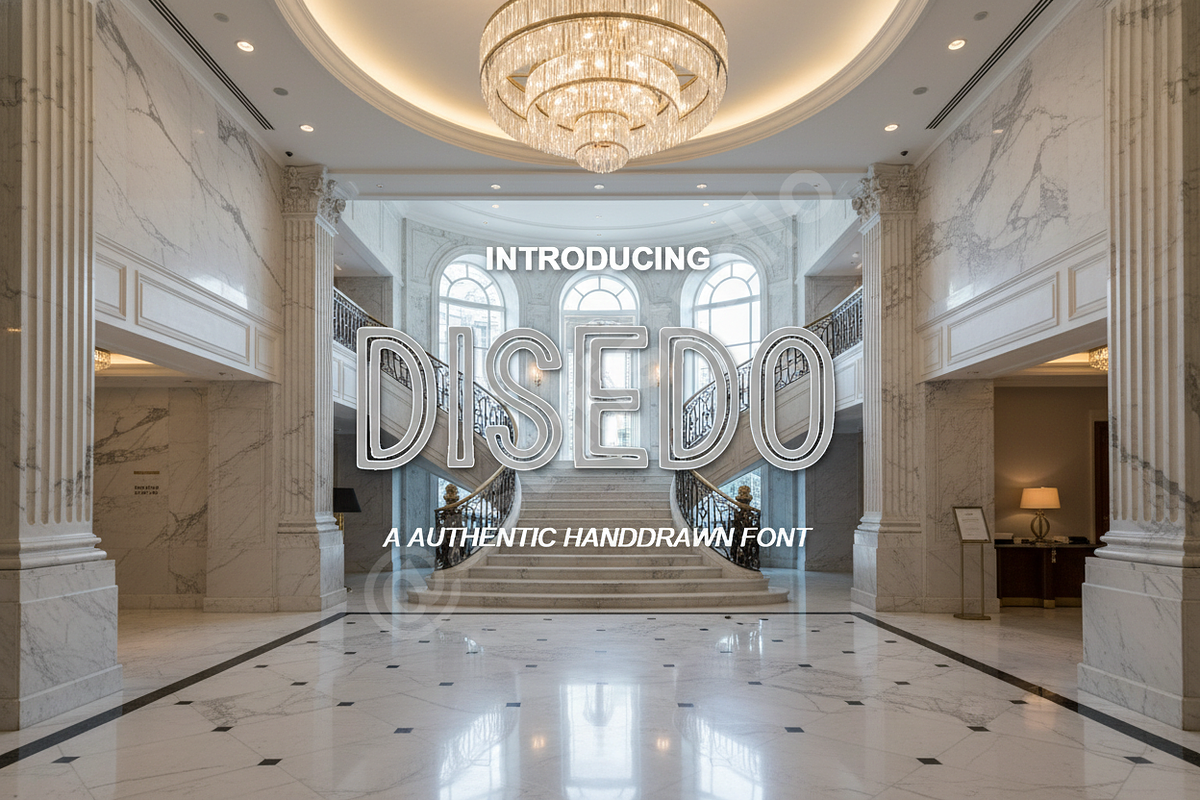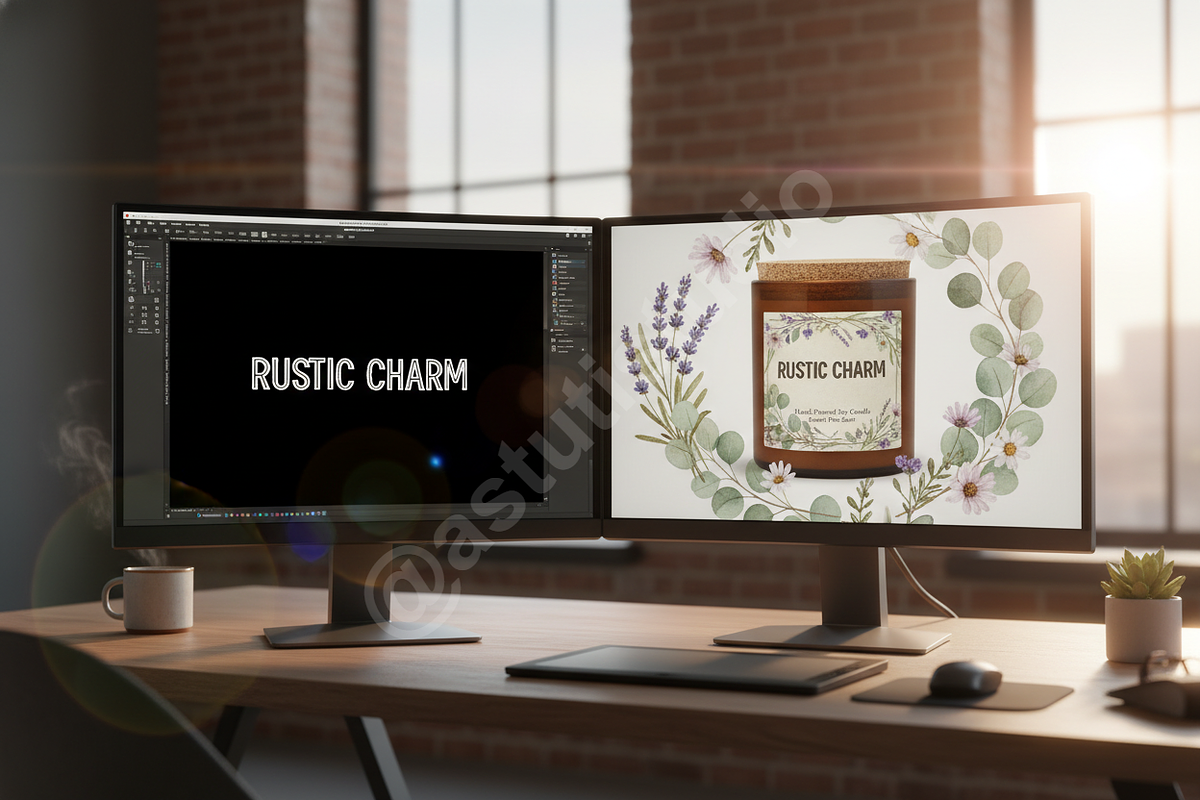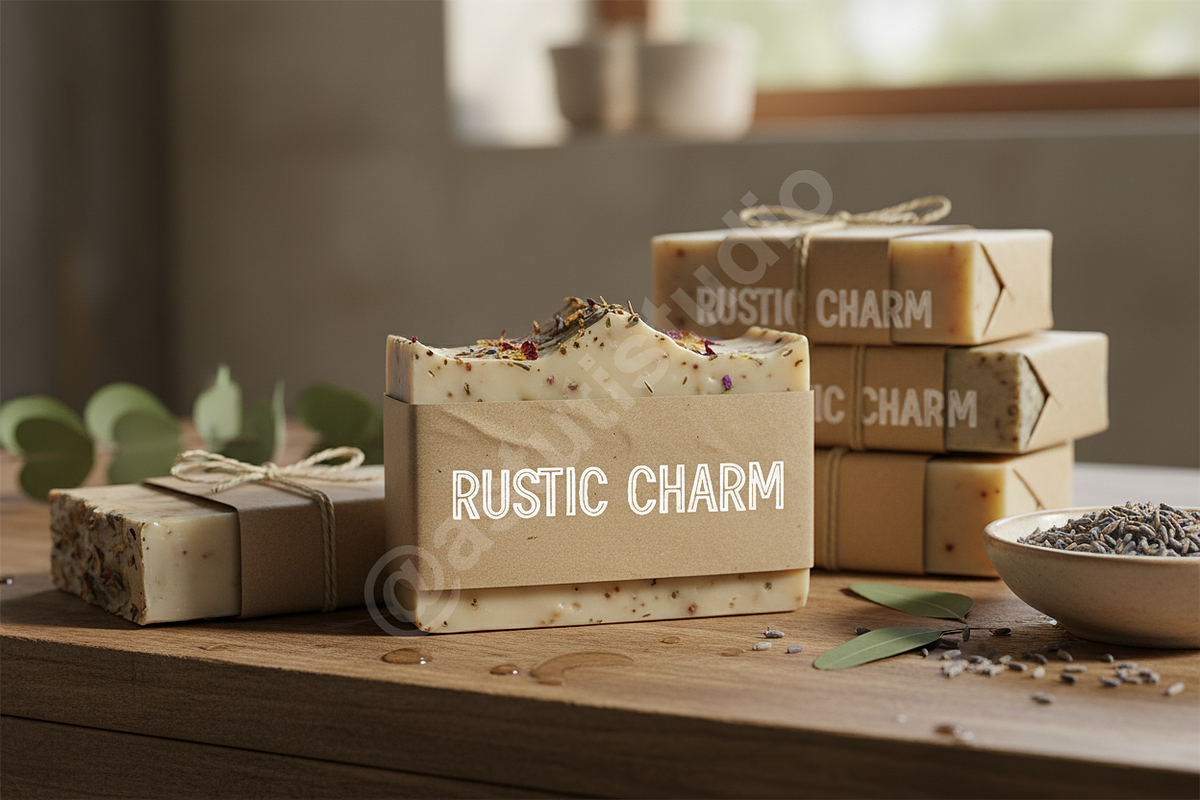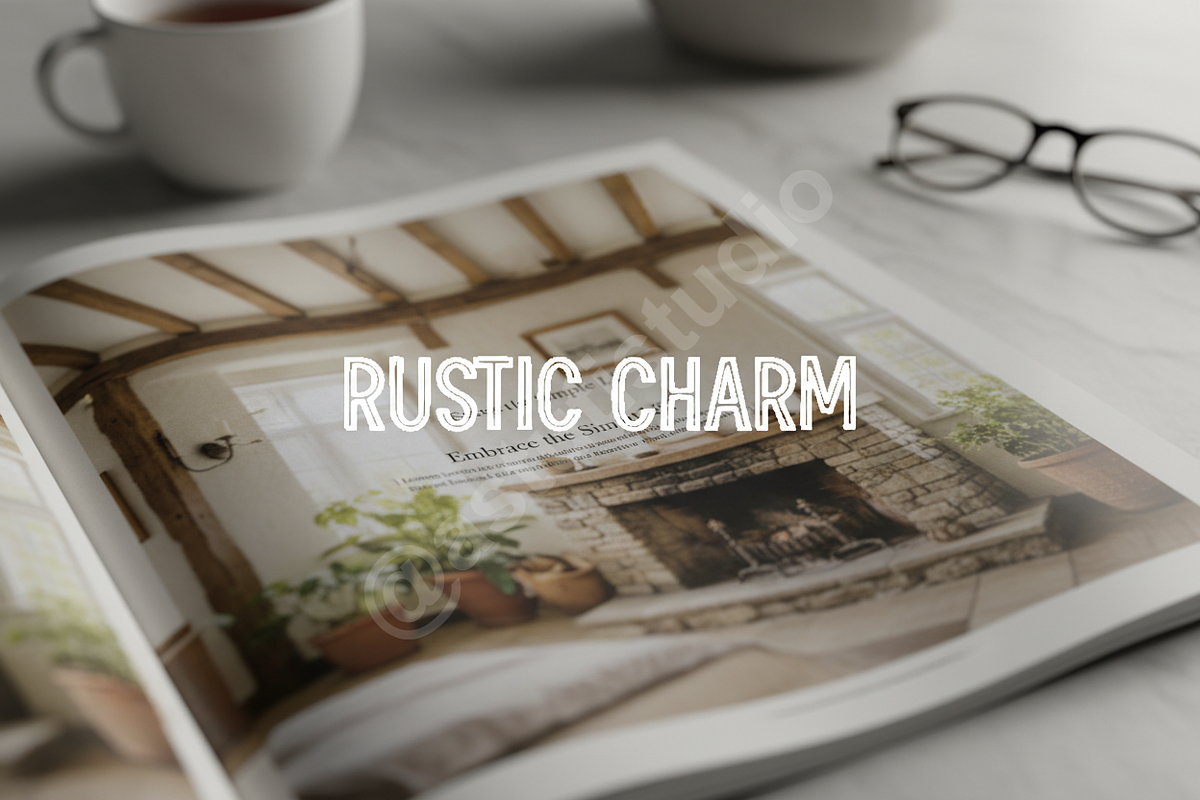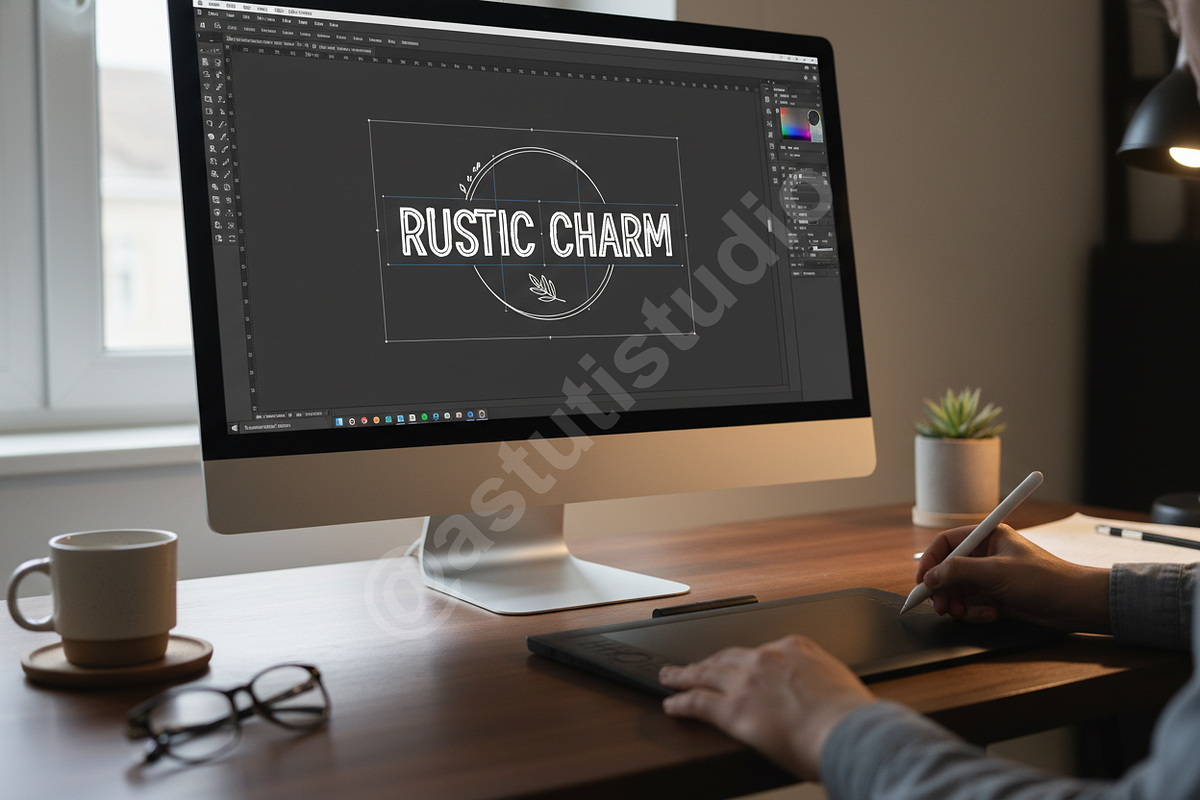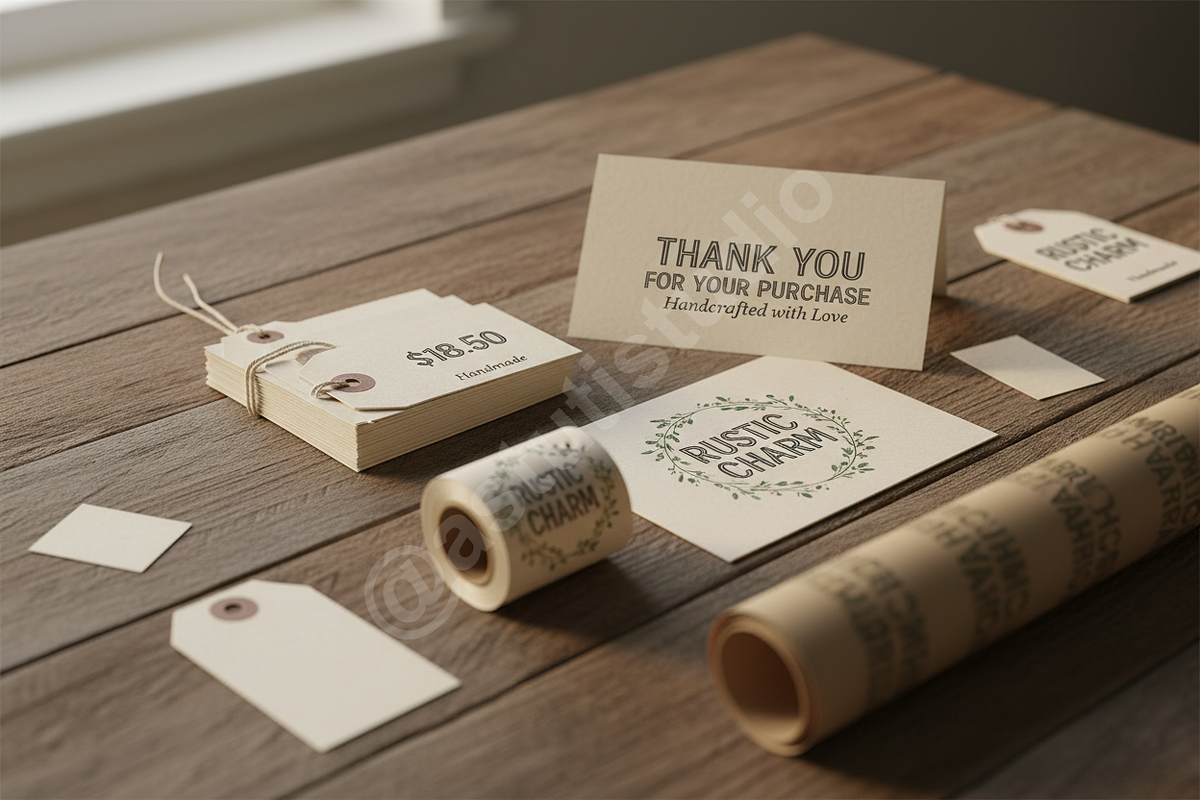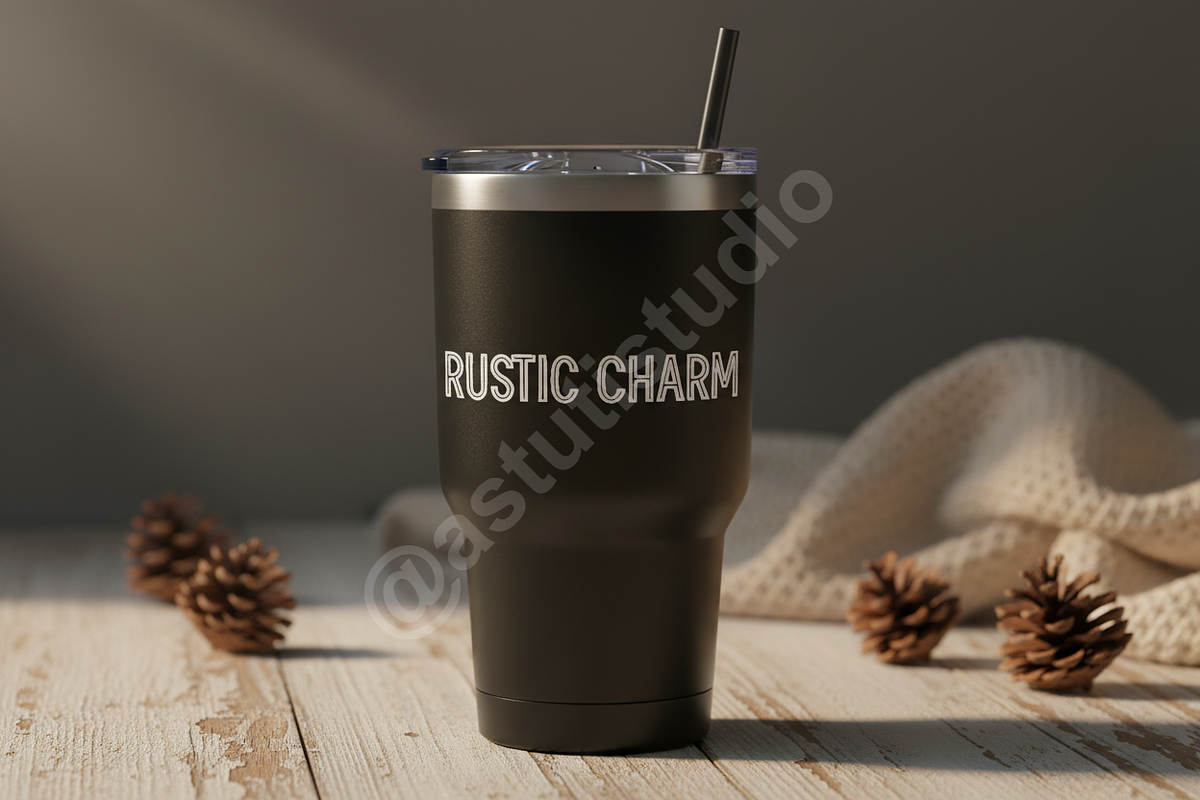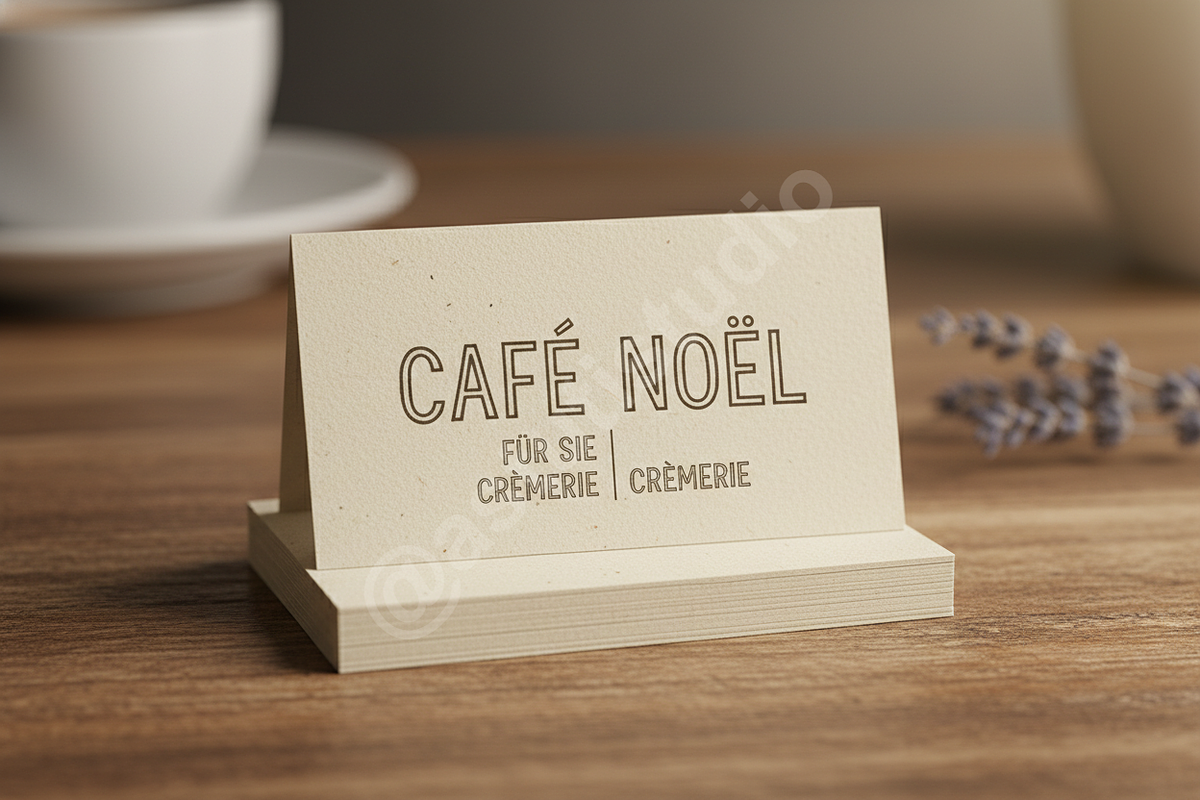
Disedo - Elegant Contemporary Serif
# Introduction: The Essence of Disedo
Disedo is a meticulously crafted contemporary serif typeface designed for studios seeking an unparalleled level of sophistication. It strikes a perfect balance between timeless elegance and modern sharpness, featuring high contrast strokes and graceful terminal detailing. Disedo is the definitive choice for luxury branding initiatives, high-end editorial design layouts, and impactful social media campaigns that demand an air of exclusivity. It guarantees clear legibility and commanding presence across both digital and print mediums.
# Premium Features
- High Contrast Design: Offers a striking visual impact crucial for mastheads and logotypes.
- Extensive Multilingual Support: Ready for global projects with broad language coverage.
- Standard Ligatures & Stylistic Alternates: Enhanced typographical options for custom design work.